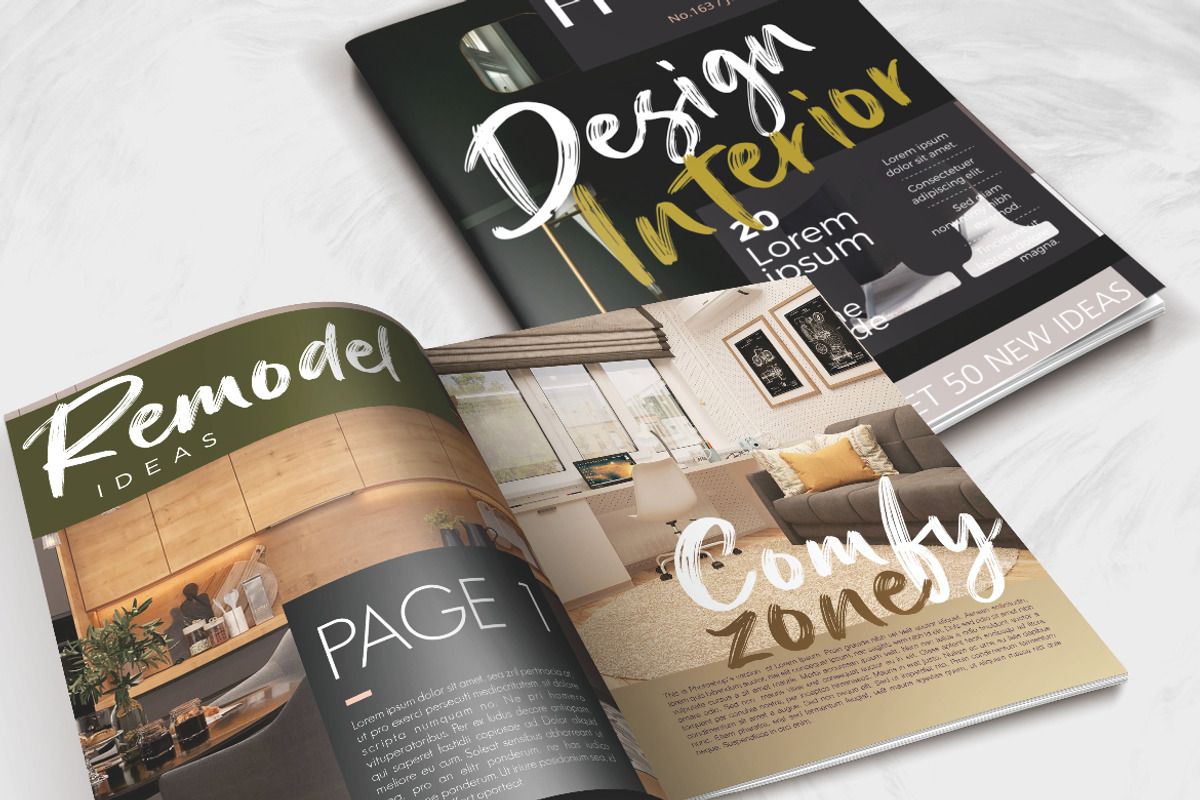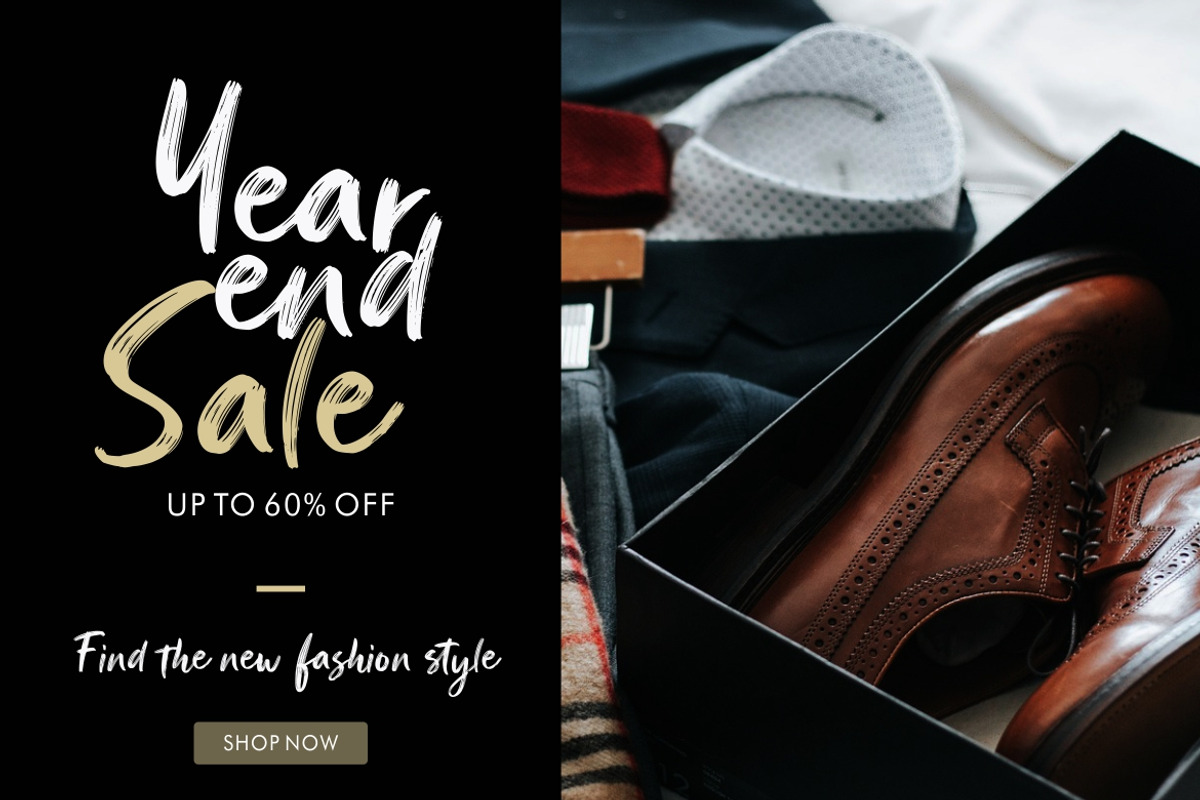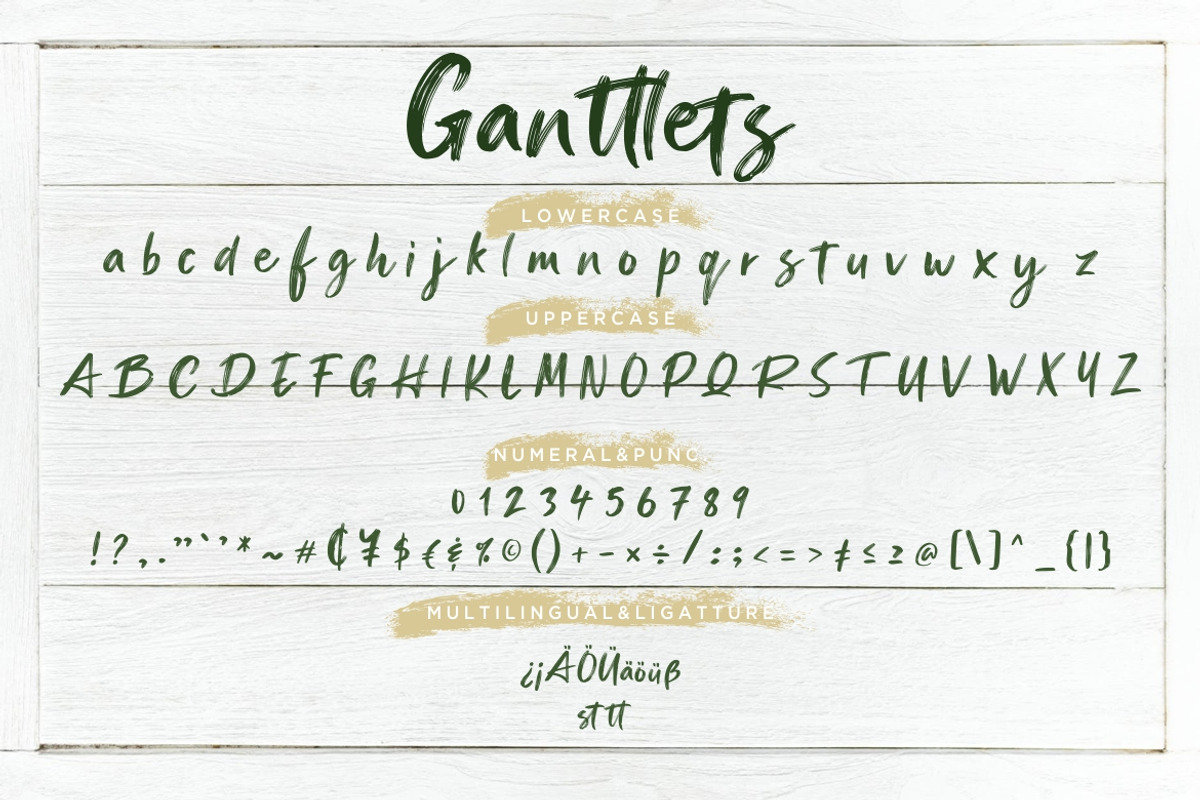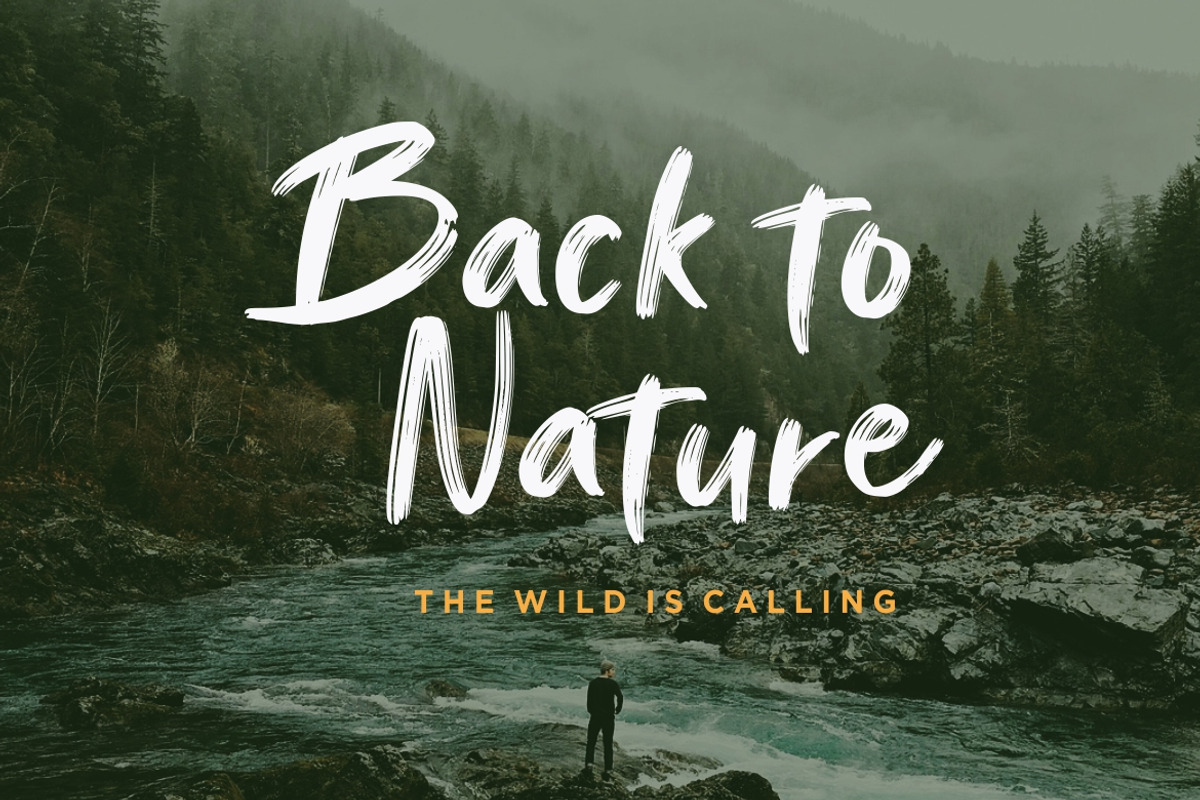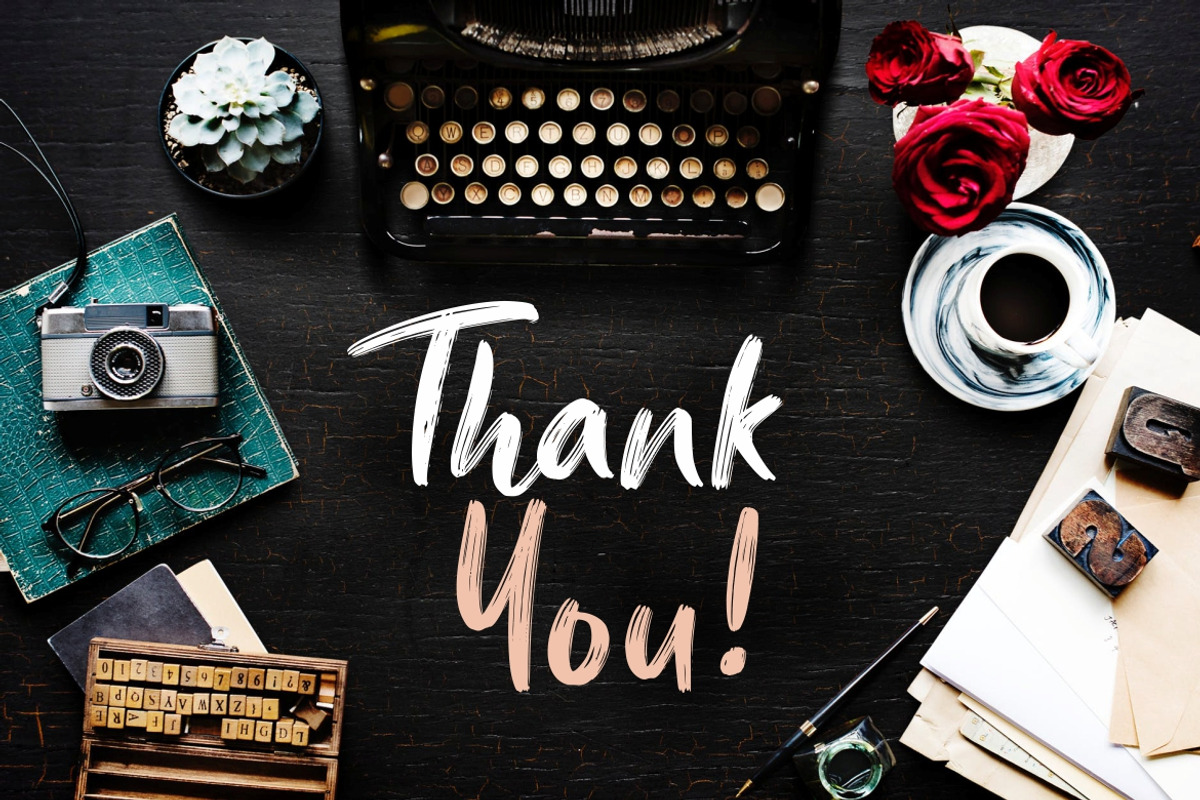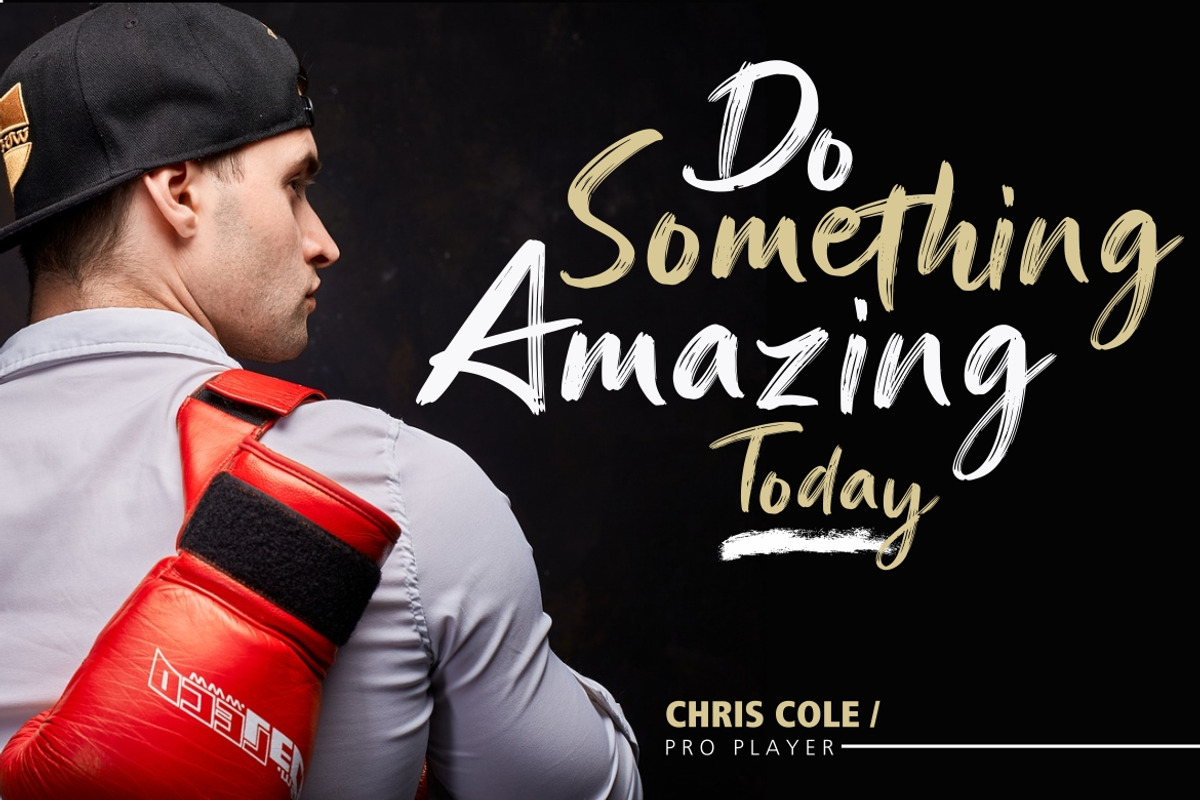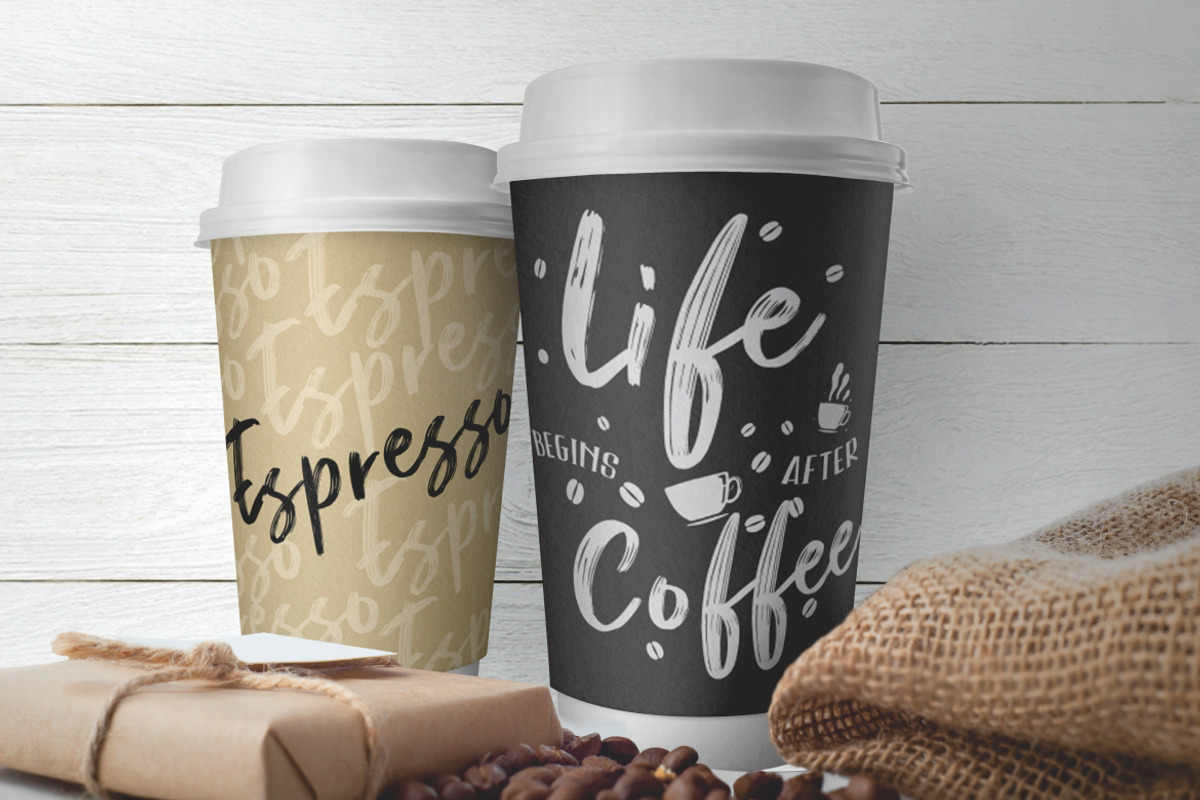
Ganttlets Brush Business Font
Ganttlets is brush script modern font will make your latest project looks awesome and elegant.
Ganttlets is perfect for branding projects, logo, wedding designs, social media posts, advertisements, product packaging, product designs, label, photography, watermark, invitation, stationery and any projects that need handwriting taste.
- Fonts include multilingual support for; ä ö ü Ä Ö Ü ß ¿ ¡
Why Ganttlets Brush Business Font is worth a look
Ganttlets Brush Business Font by Creatype Studio fits naturally into Branding, posters, packaging, typography.